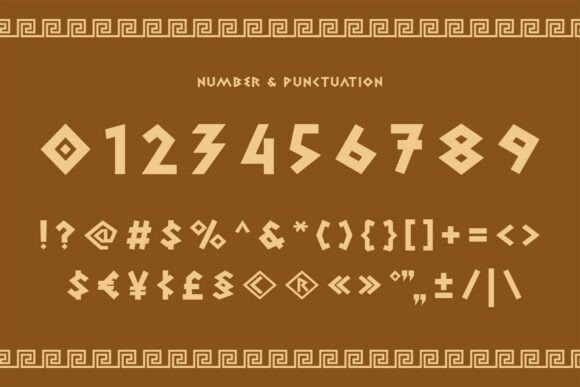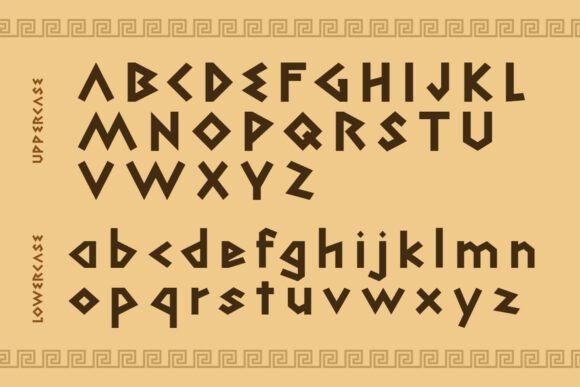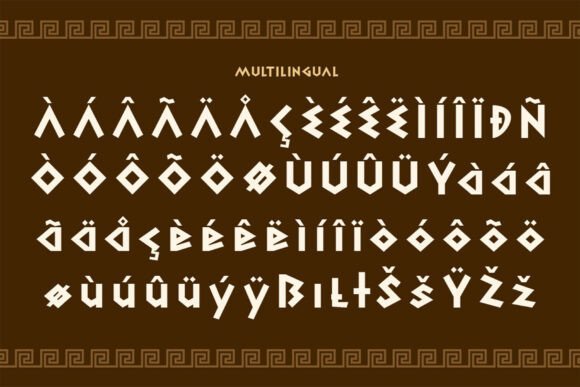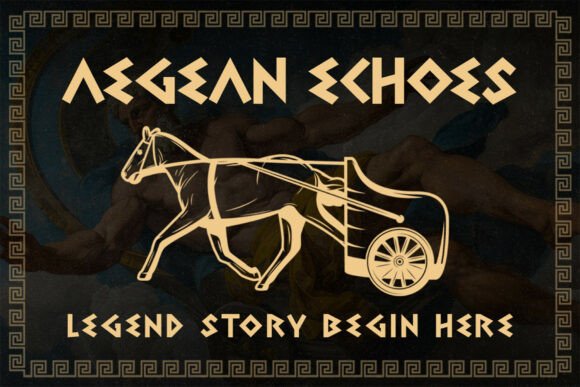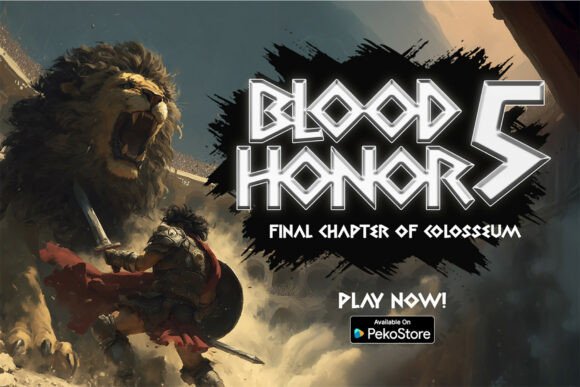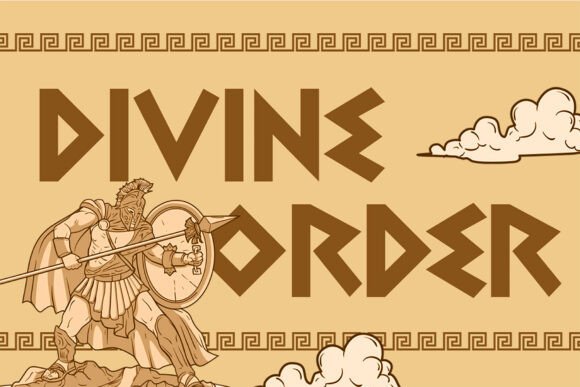
Unleashing the Timeless Elegance of Ancient Greece
Have you ever been inspired by the grandeur of a ancient Greek temple, the intricate details of an ancient vase, or the majestic script of an ancient scroll? For designers, the allure of classical civilization is a constant source of fascination. It’s in these moments of creative reverie that the perfect font can transport us to a world of timeless elegance and sophistication. Enter the Archides Font, a bold and unique ethnic display font that embodies the strength, mystique, and artistry of Hellenic culture.
With its carefully crafted geometric edges and distinctive shapes, the Archides Font is the perfect tool for designers seeking to infuse their projects with a powerful visual presence. Whether you’re designing for a historical theme, an epic fantasy, or a modern brand with a touch of antiquity, the Archides Font brings an unmistakable cultural richness to your typography.
Key Features of Archides Font
- Unique Characteristics: The font features a unique blend of modern and traditional design elements, with intricate details and subtle nuances that set it apart from other fonts.
- Character Set: Archides Font includes a comprehensive character set, including Latin, Cyrillic, and Greek alphabets, as well as a range of punctuation and symbol characters.
Archides Font Review
Overall, I was excited to dive into the world of Archides Font, and I must say it has some great features that make it a solid addition to any design project. Here’s what I think:
- Highly versatile: Archides Font is perfect for a wide range of designs, from elegant invitations to modern logos.
- Unique style: The font’s unique blend of classic and modern elements gives it a distinctive look that’s sure to stand out.
- Extensive language support: Archides Font supports a vast number of languages, making it a great choice for international projects.
- Limited expressiveness: While Archides Font is highly versatile, it may not be the best choice for projects that require a lot of emotional expression or personality.
- Not ideal for body text: The font’s unique style can make it difficult to read in large blocks of text, making it better suited for headlines and titles.
While Archides Font has some limitations, its unique style and versatility make it a great addition to any design project. With careful consideration of its strengths and weaknesses, I believe Archides Font can be a valuable tool for designers looking to add a touch of elegance and sophistication to their work.
Archides font is commonly used for:
- Modern logo designs
- Elegant typography-based designs
- Professional presentations and documents
- Creating a luxurious and sophisticated brand image